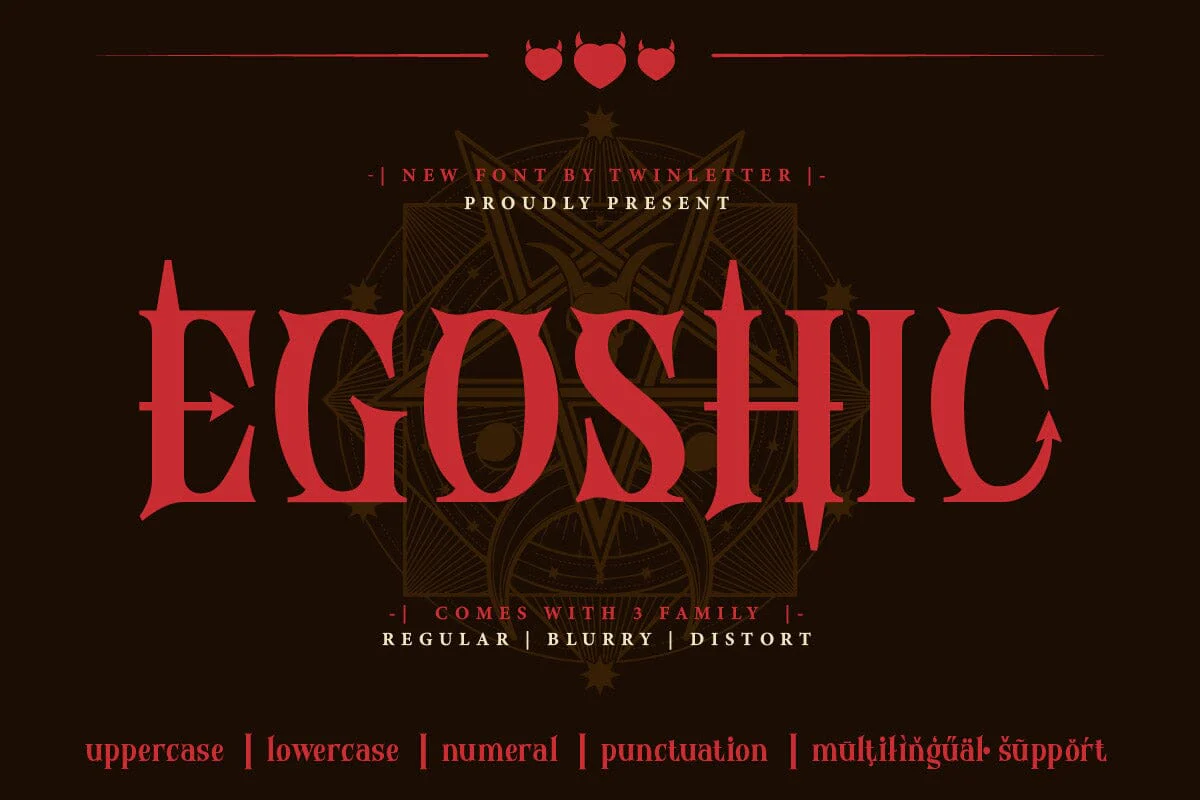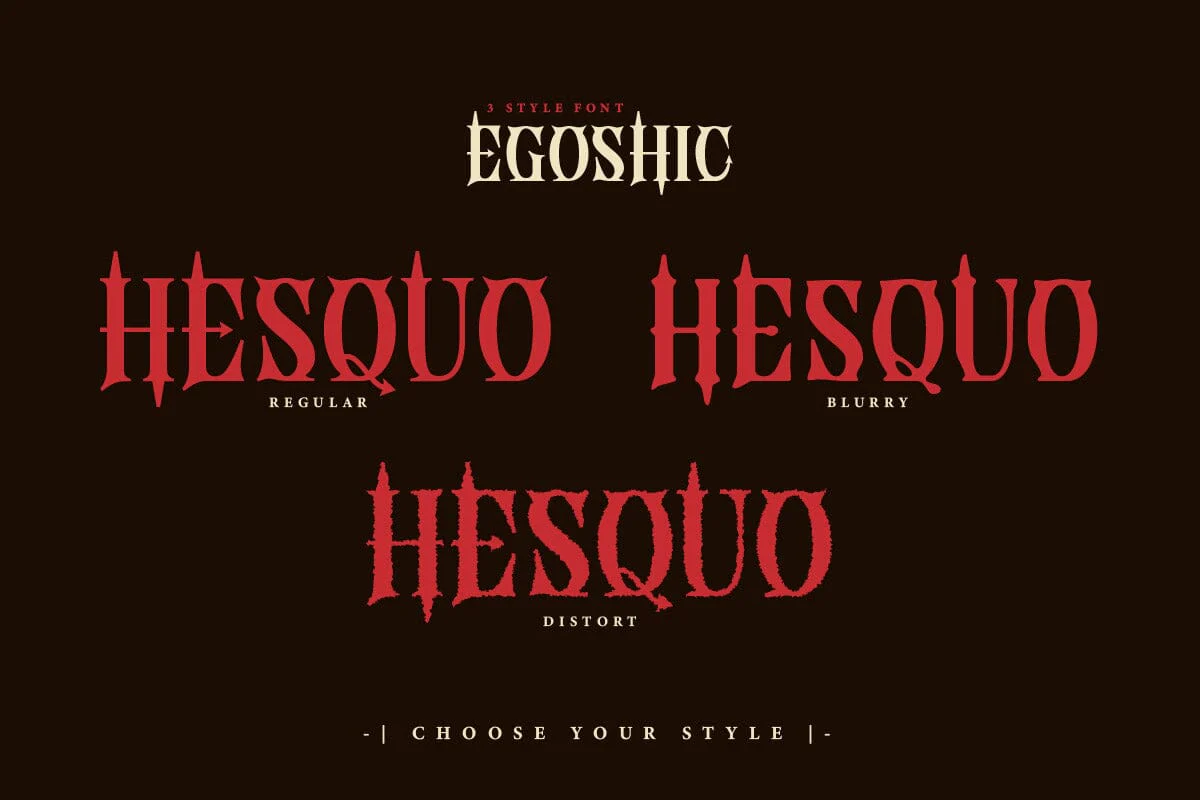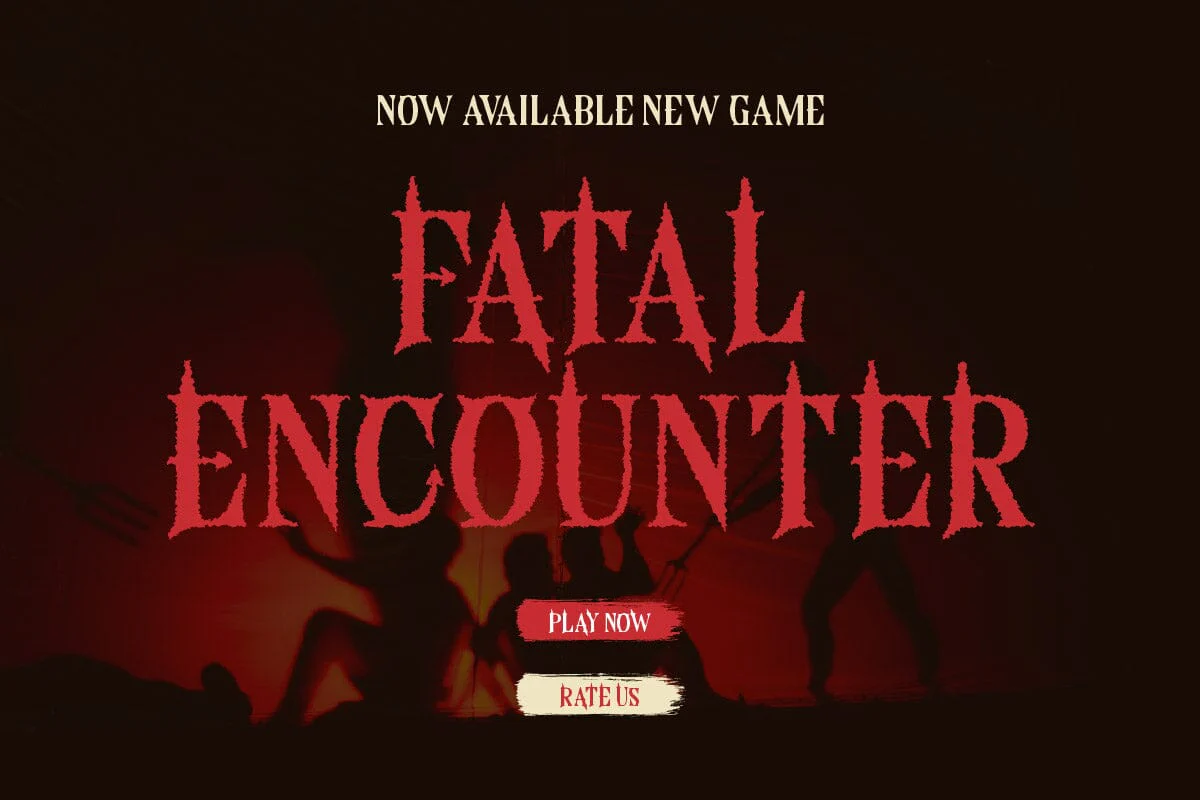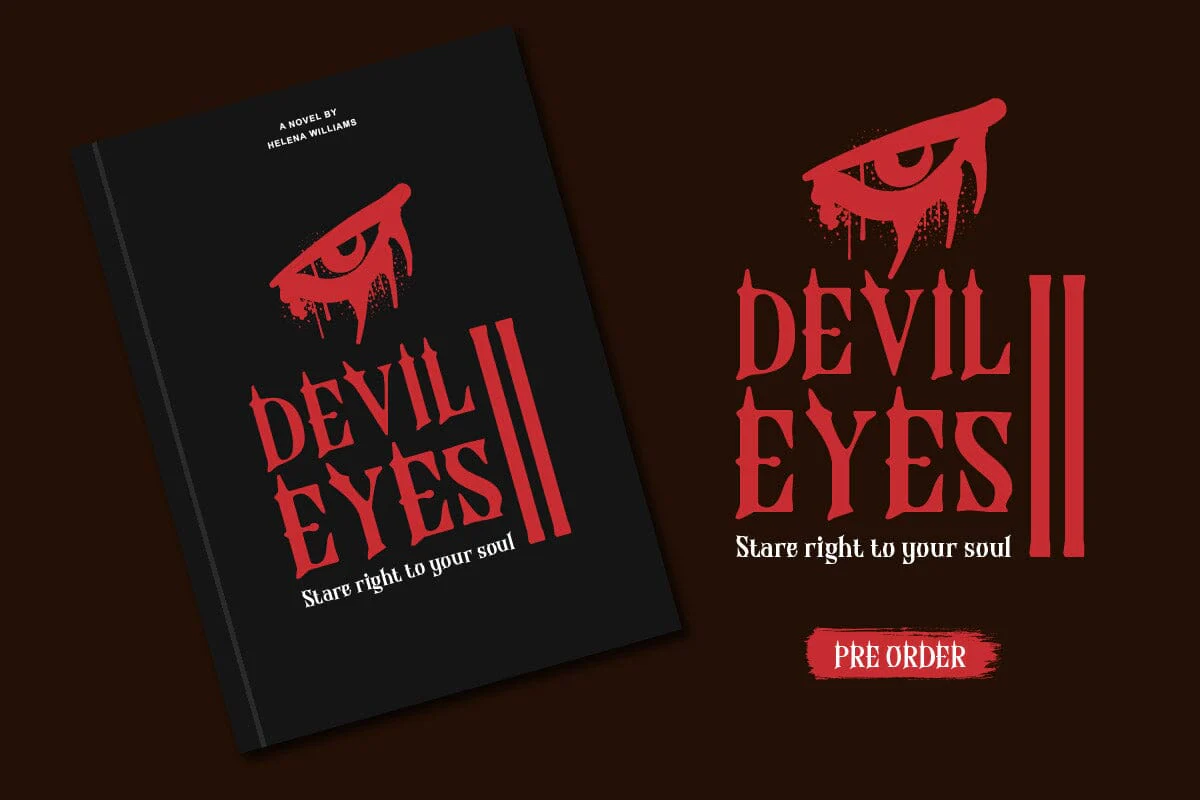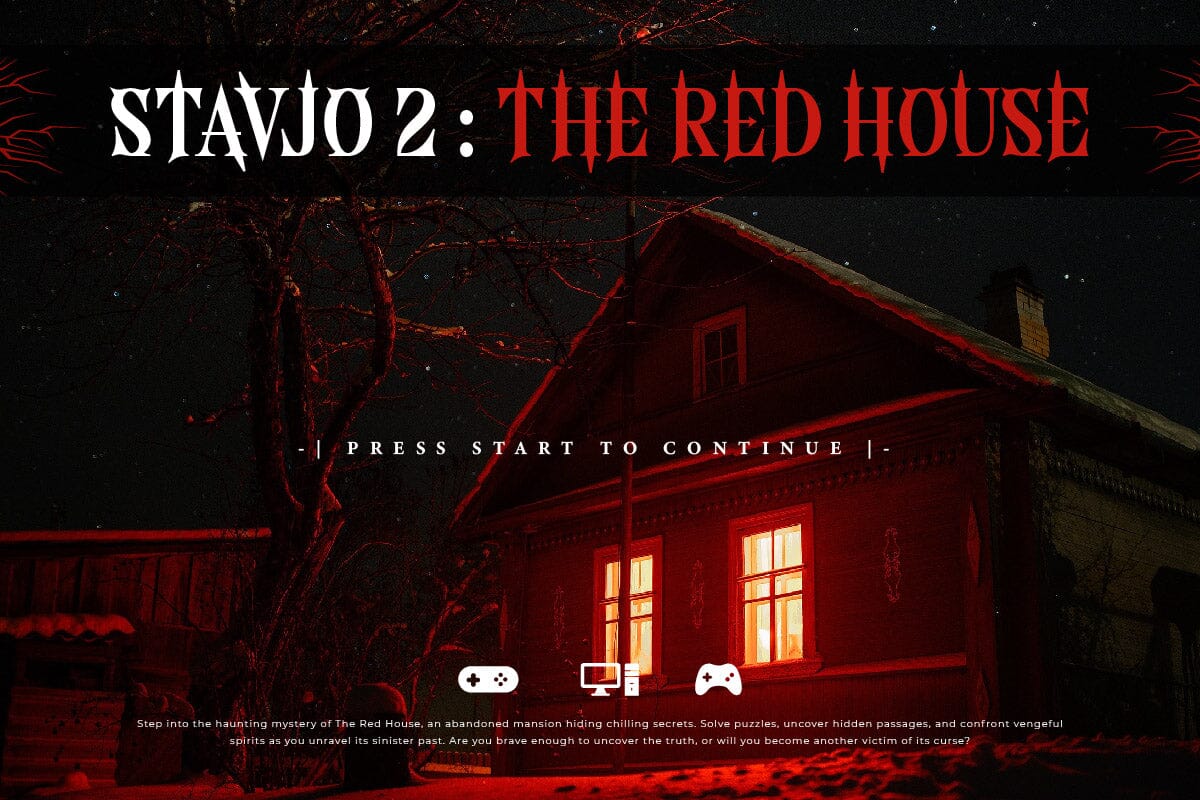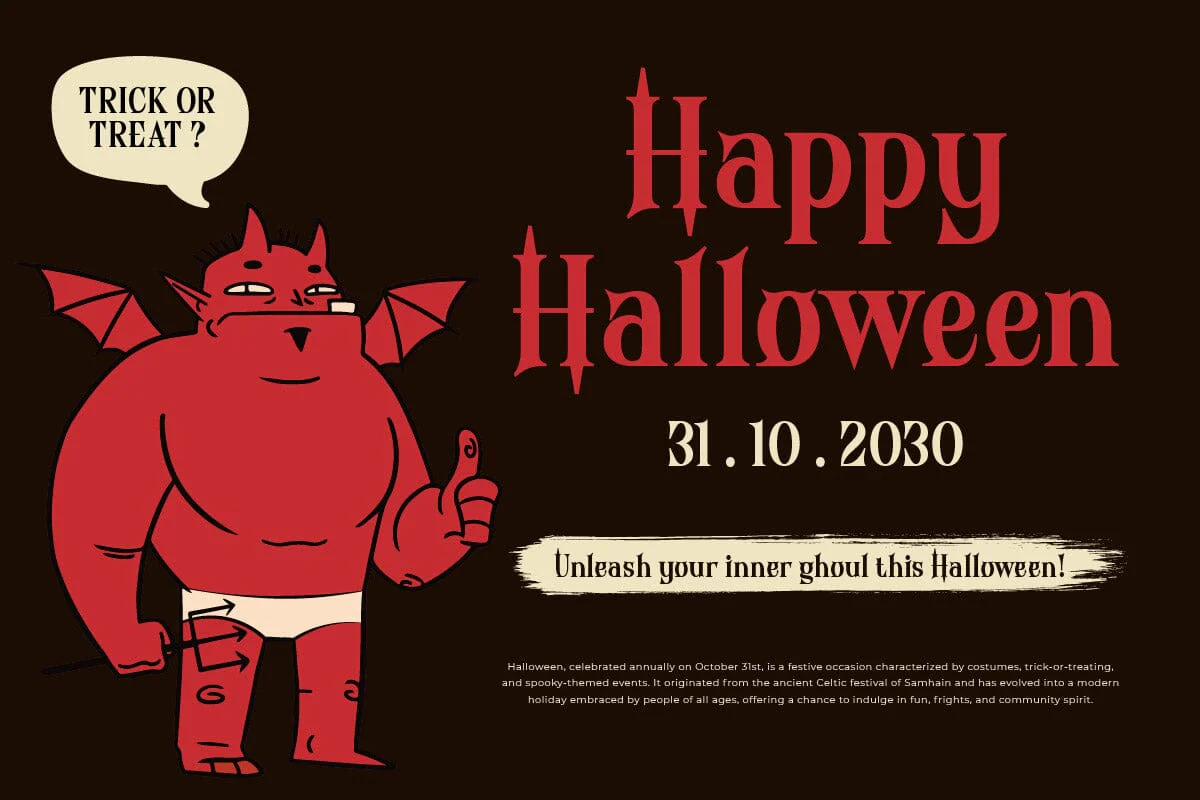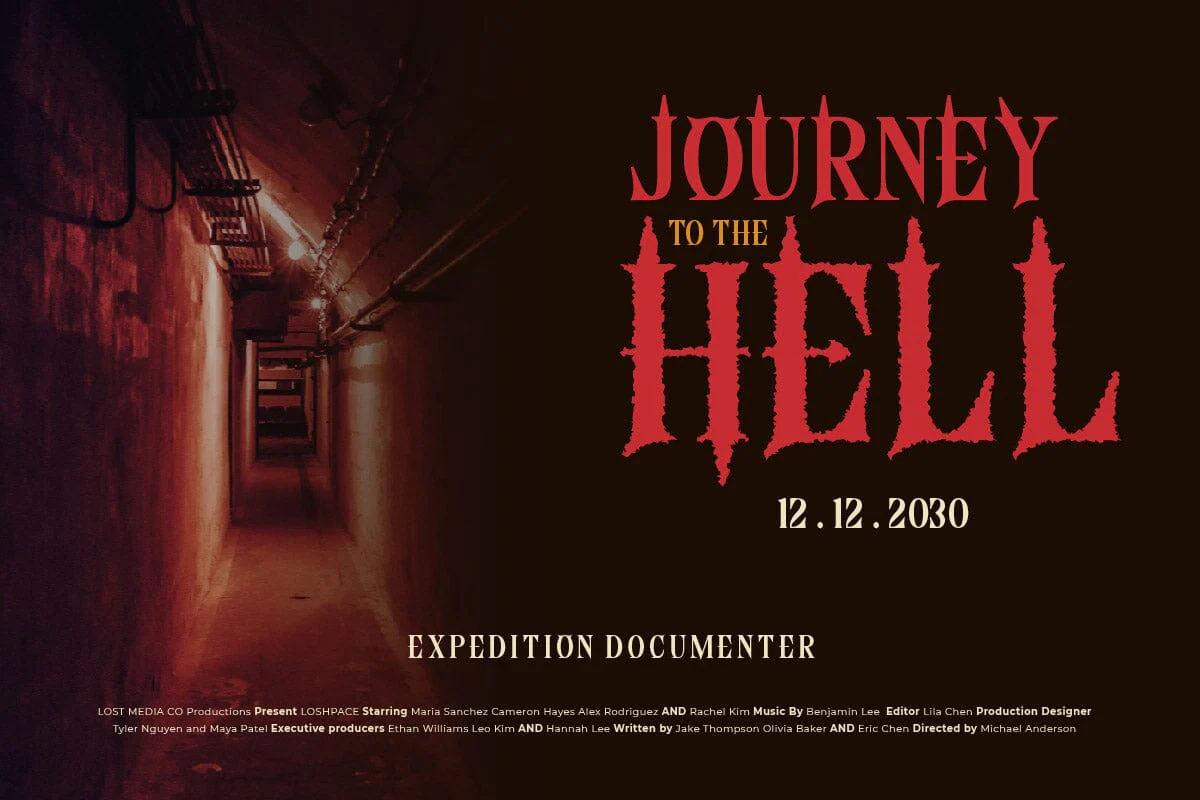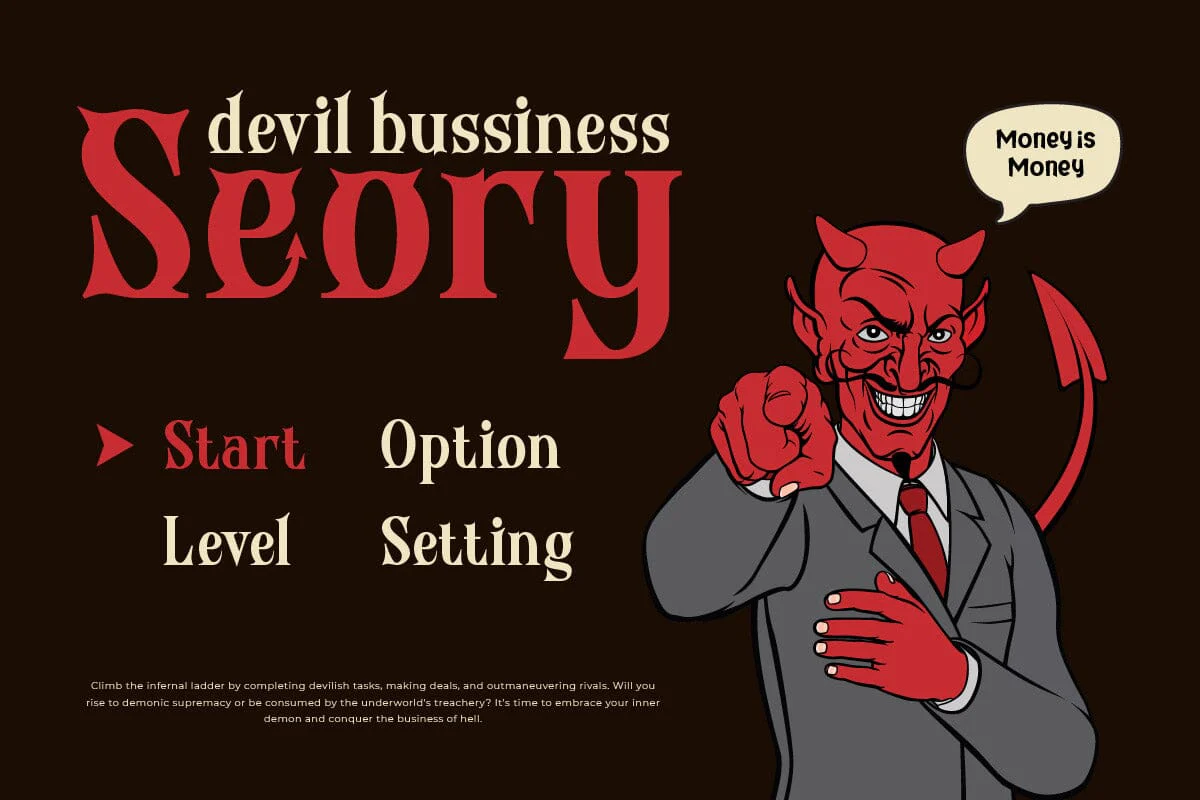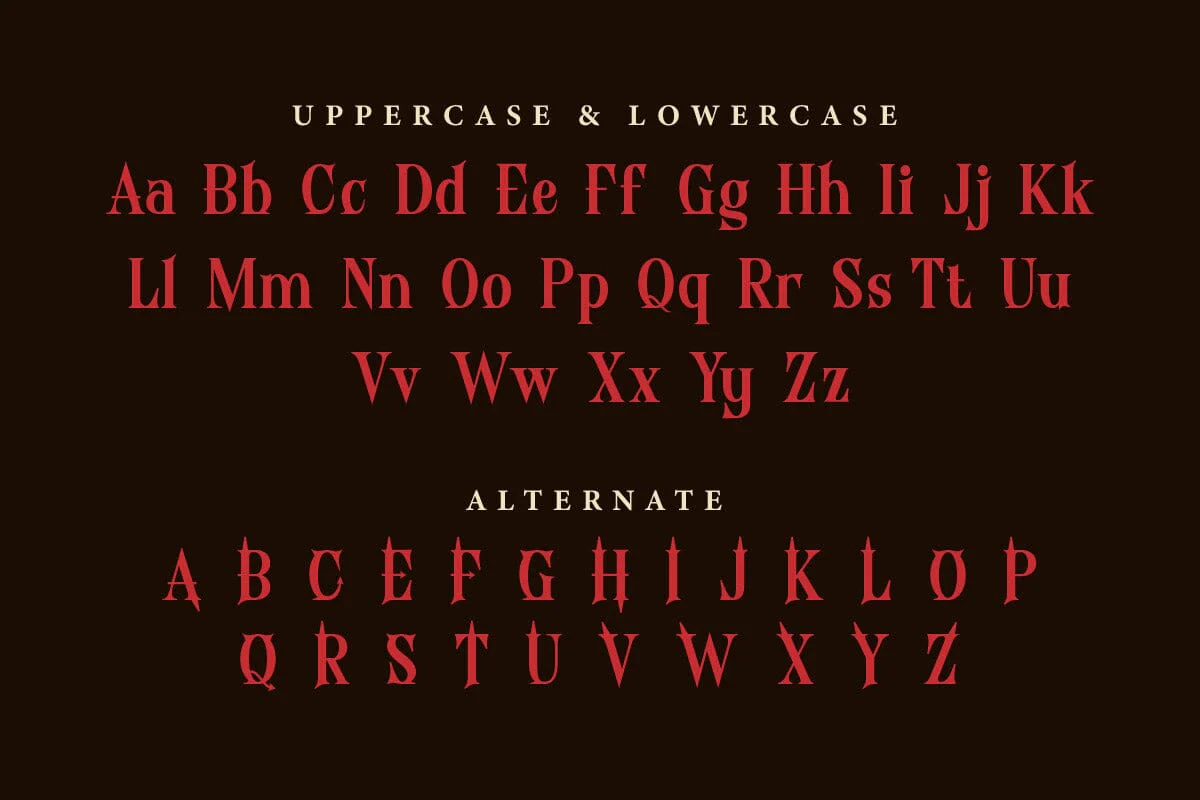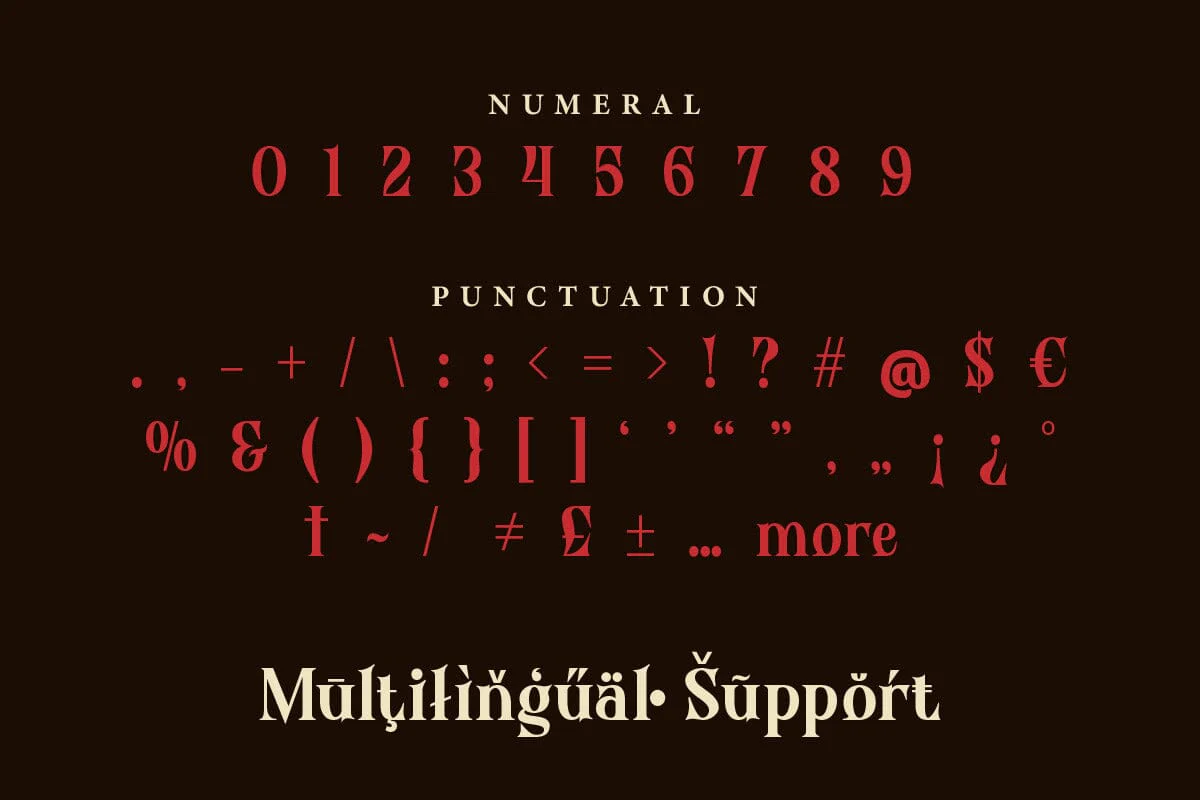
Egoshic - Serif Display Font
Egoshic, our Serif Display Font, offers a timeless blend of sophistication and elegance to elevate your design projects. With its meticulously crafted serif characters, Egoshic commands attention and exudes an air of authority and refinement. Ideal for editorial layouts, branding materials, and luxury packaging, this font adds a touch of class and professionalism to any visual composition. Its versatility makes it perfect for a wide range of applications, from magazine headlines to prestigious event invitations. Incorporating Egoshic into your designs ensures a seamless fusion of classic charm and modern aesthetics, leaving a lasting impression on your audience.